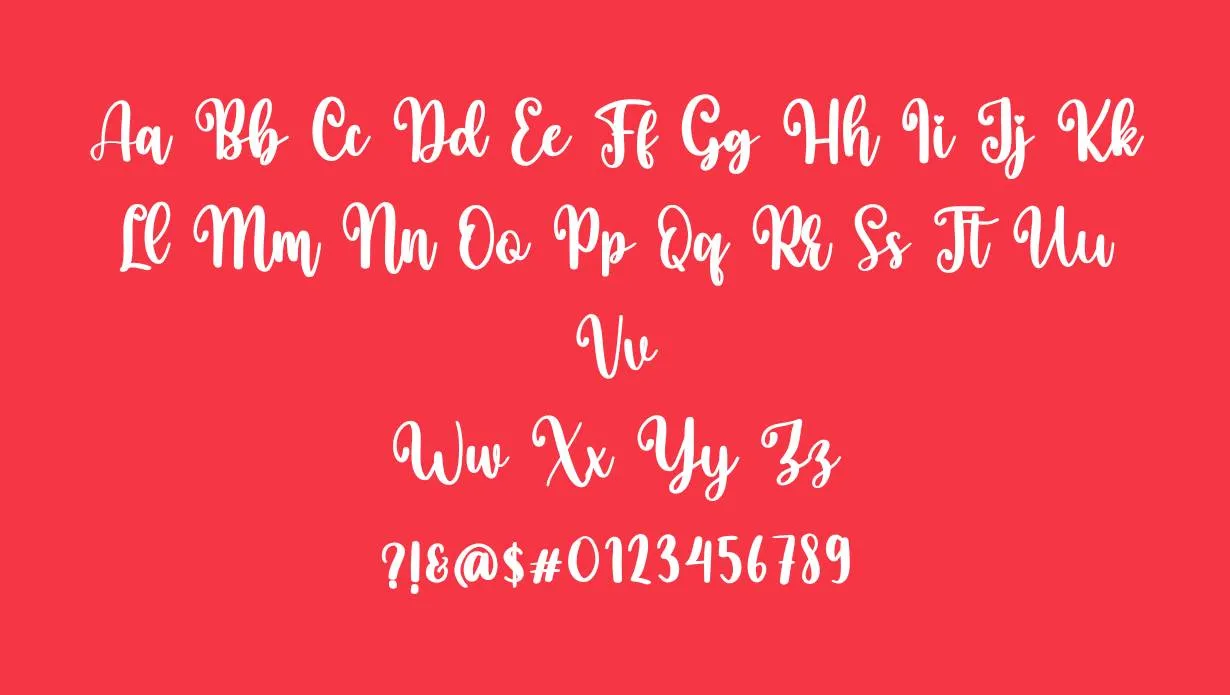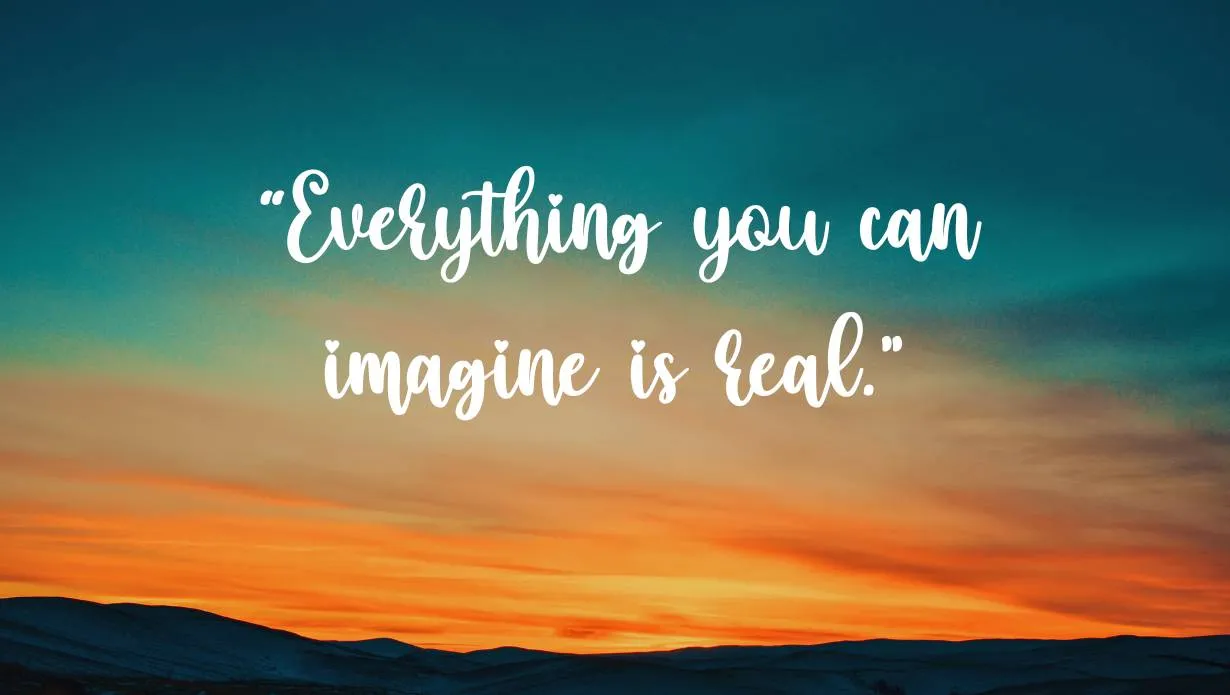
We’re introducing Myloves Font, a sweet and elegant style that contains lovely swashes that belong to the calligraphy category and that was crafted by Beartypes.
Myloves Font Family
It includes cute uppercase, lowercase, punctuations, symbols, signs, alternates, accents, and some special characters.